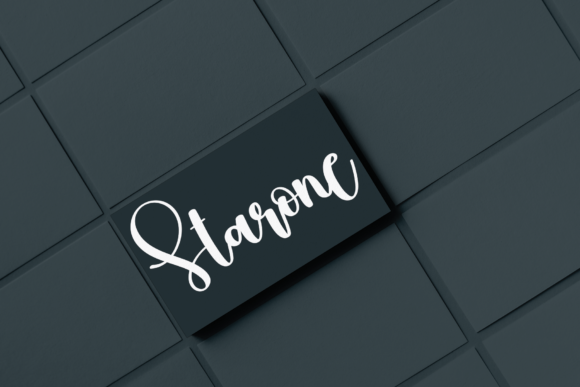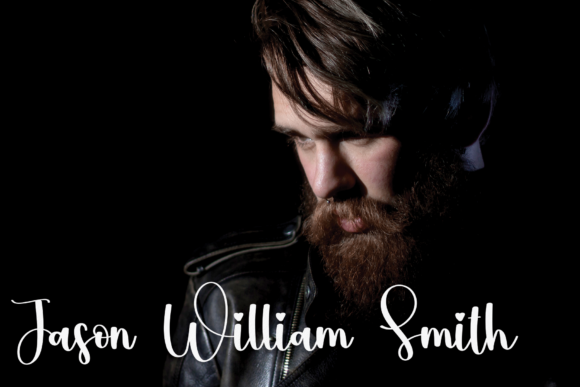
Bodylotion Font
db-ku.com - Script & Handwritten -- Bodylotion is a distinct graceful script font. Fall for its ravishing style and use it to create gorgeous designs. Use this font for your designs and explore its endless possibilities.